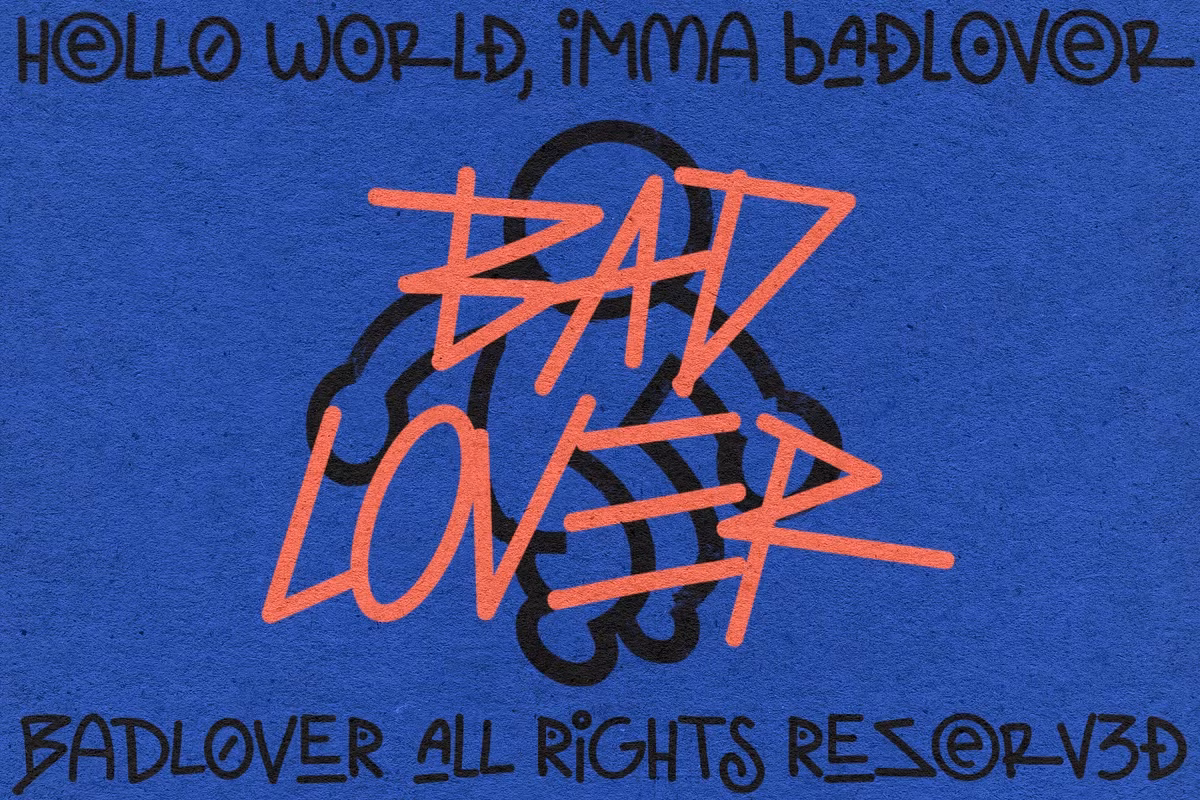
Bad Lover Font Free Download is a bold and expressive typeface that brings attitude and edge to any creative project. With its hand-drawn style and rebellious character, this font is perfect for music covers, edgy branding, streetwear designs, and standout posters. Bad Lover grabs attention instantly with its raw, energetic vibe.
Designed for those who aren’t afraid to make a statement, this font blends grunge elements with artistic flair. Whether you’re crafting album artwork or bold social media graphics, Bad Lover delivers unique personality and impact.